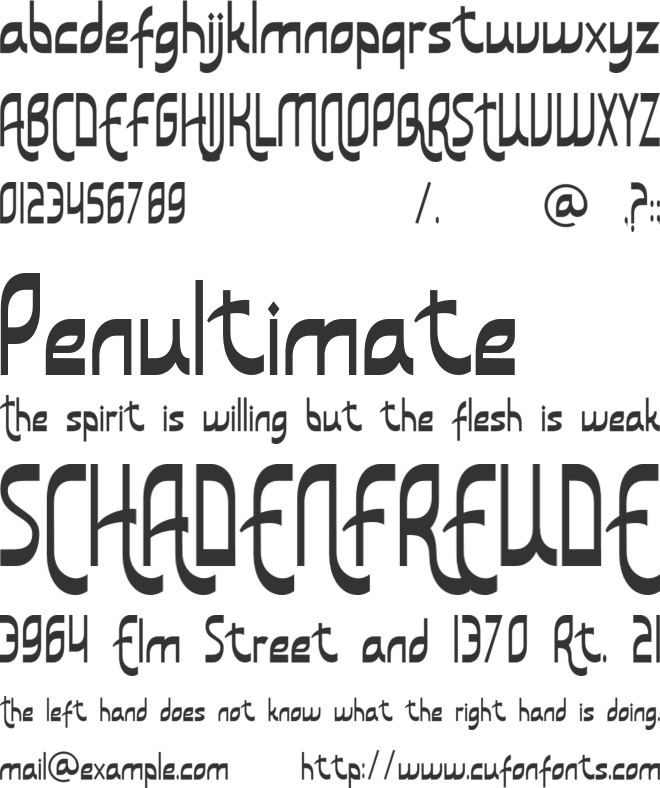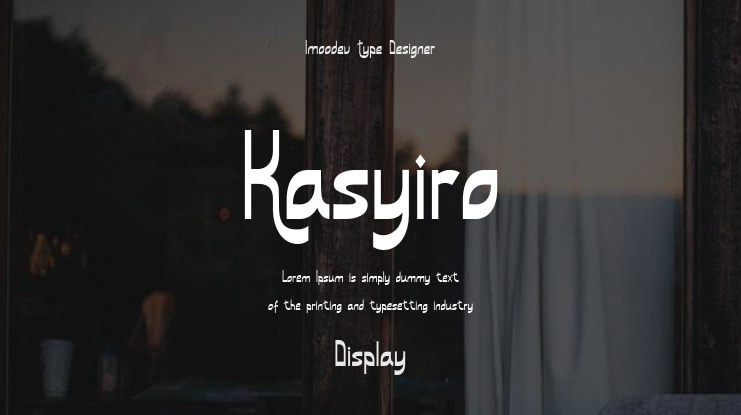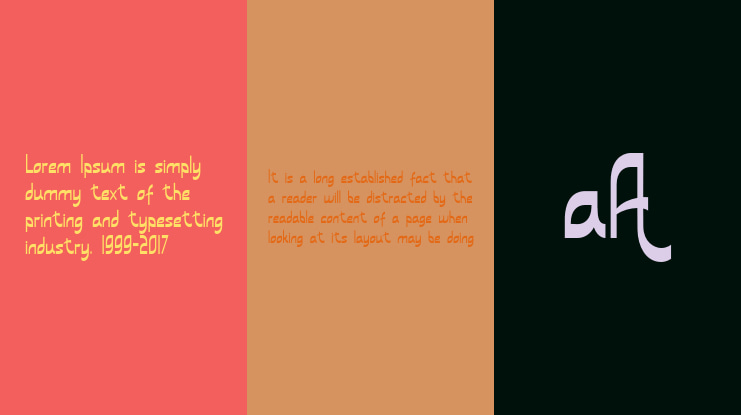
Kasyiro Font
Kasyira is a islamic display font. It showcases both curved and straight edges, lending it a distinctive and condensed visual appeal.
This font is well-suited for celebratory themes, such as Eid Mubarak greetings, Ramadan events, and Islamic branding. It can be effectively used for packaging, headlines, product designs, greeting cards, book covers, posters, promotions of Islamic events, and a variety of design or artistic projects that feature an Islamic or cultural theme.